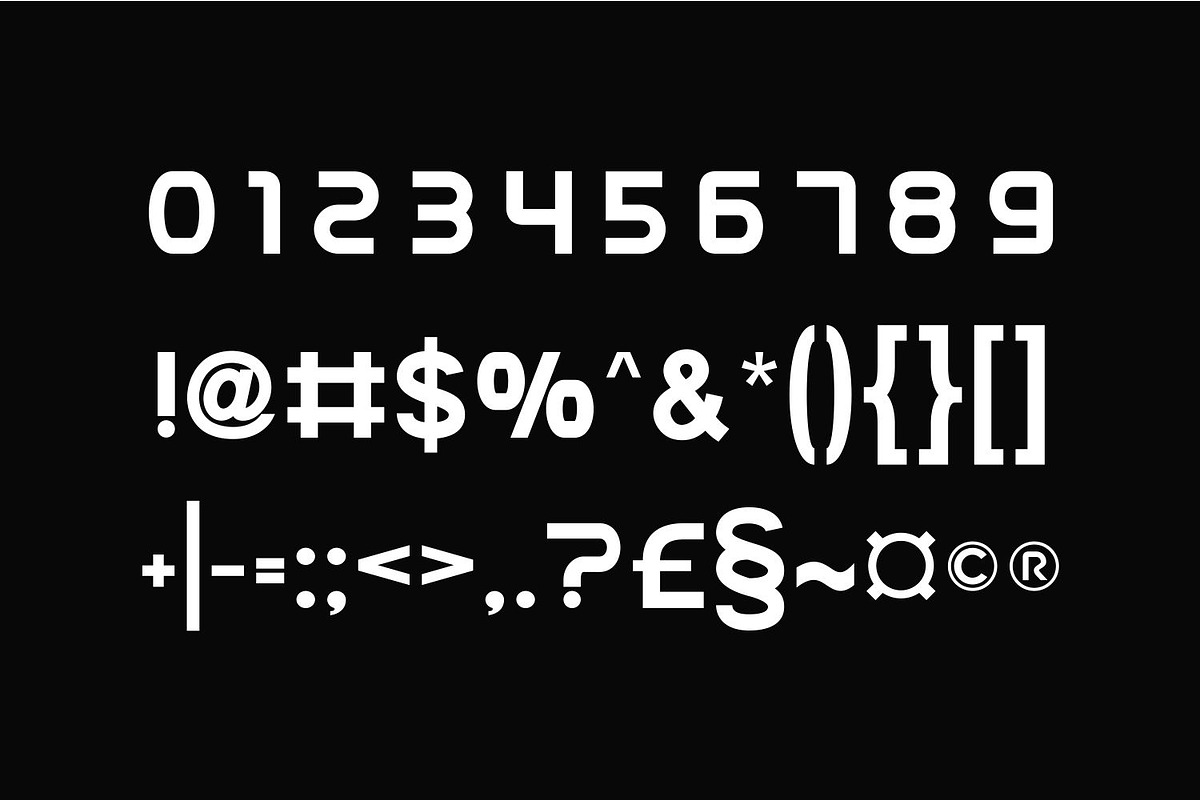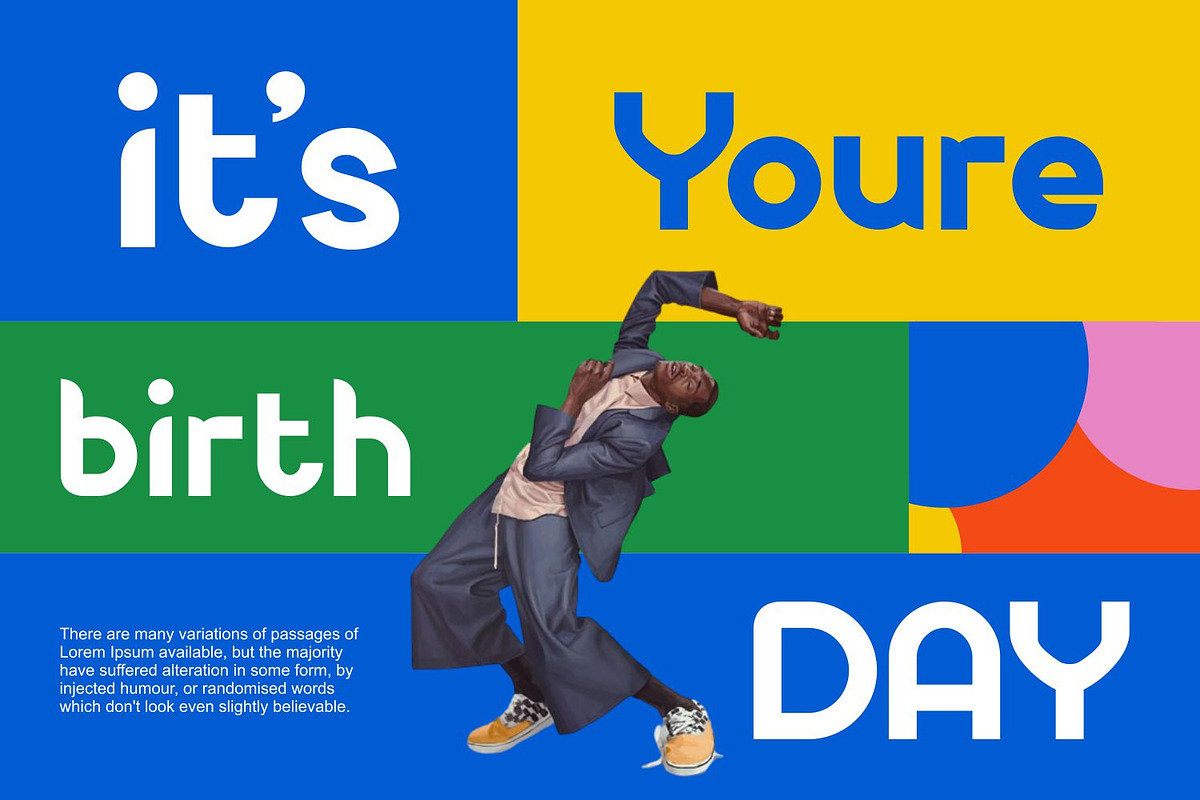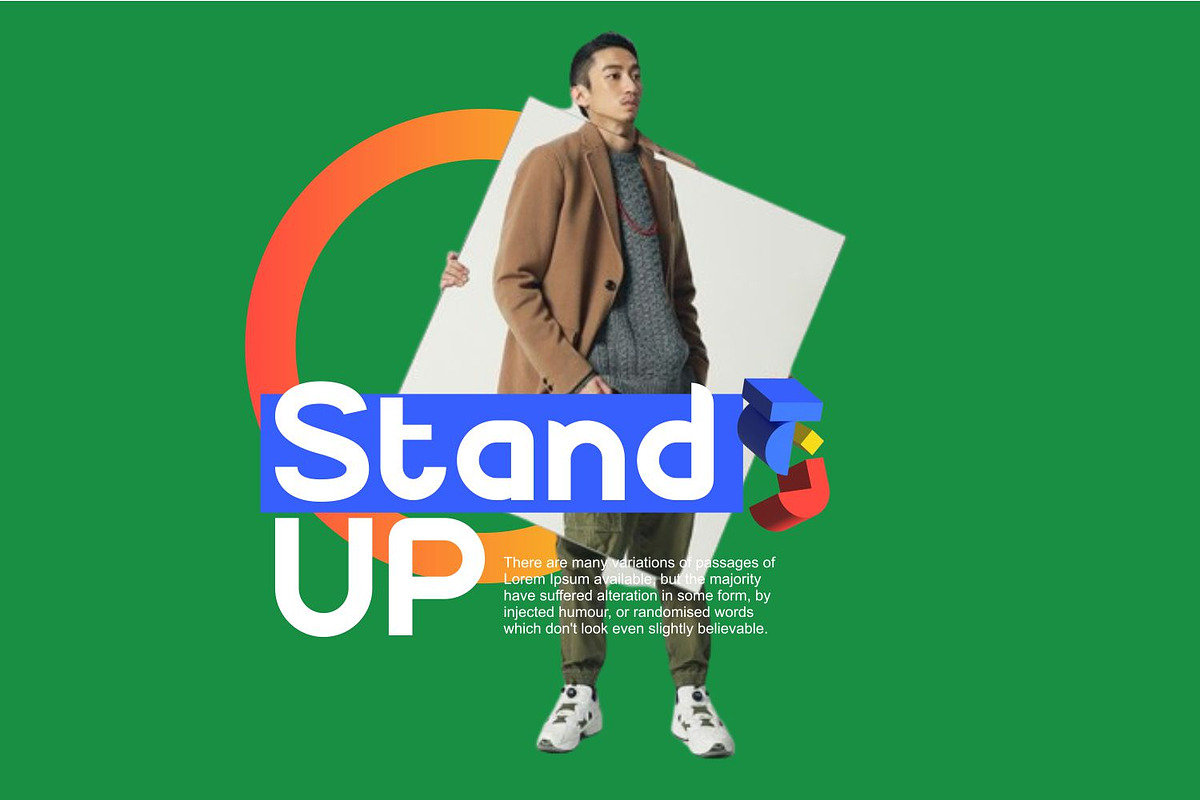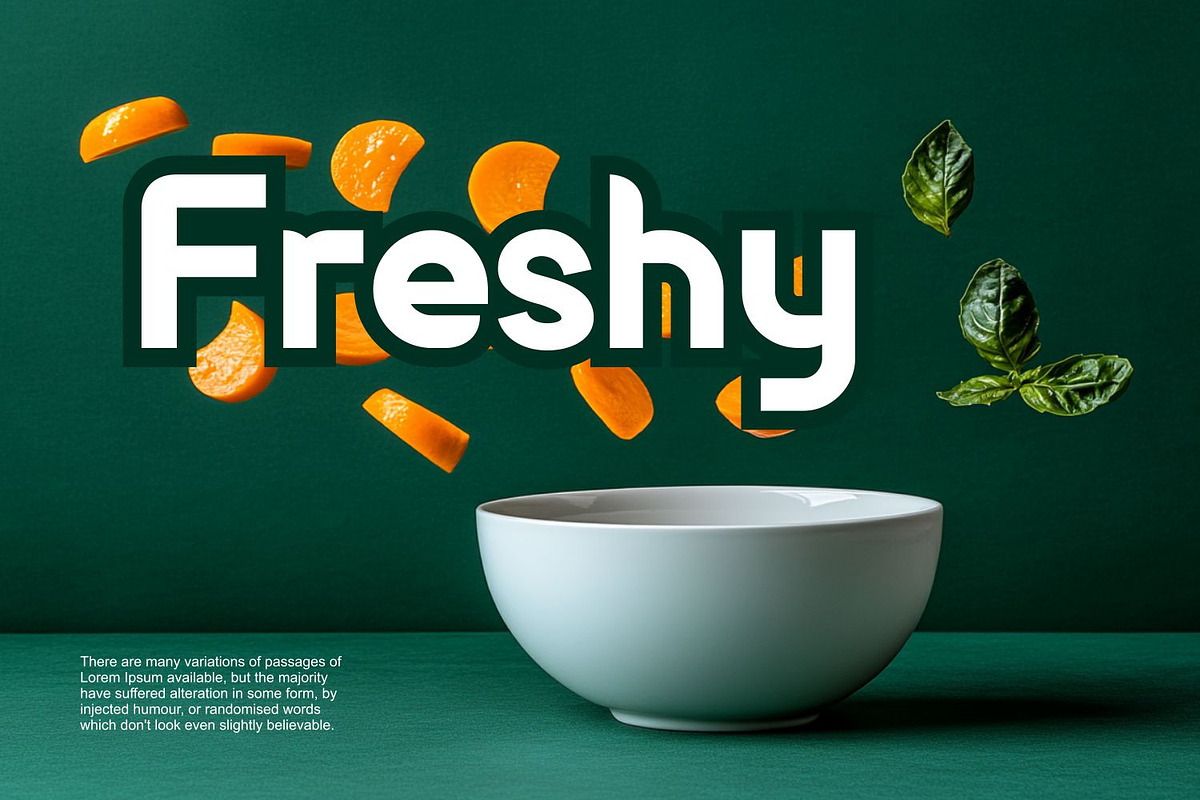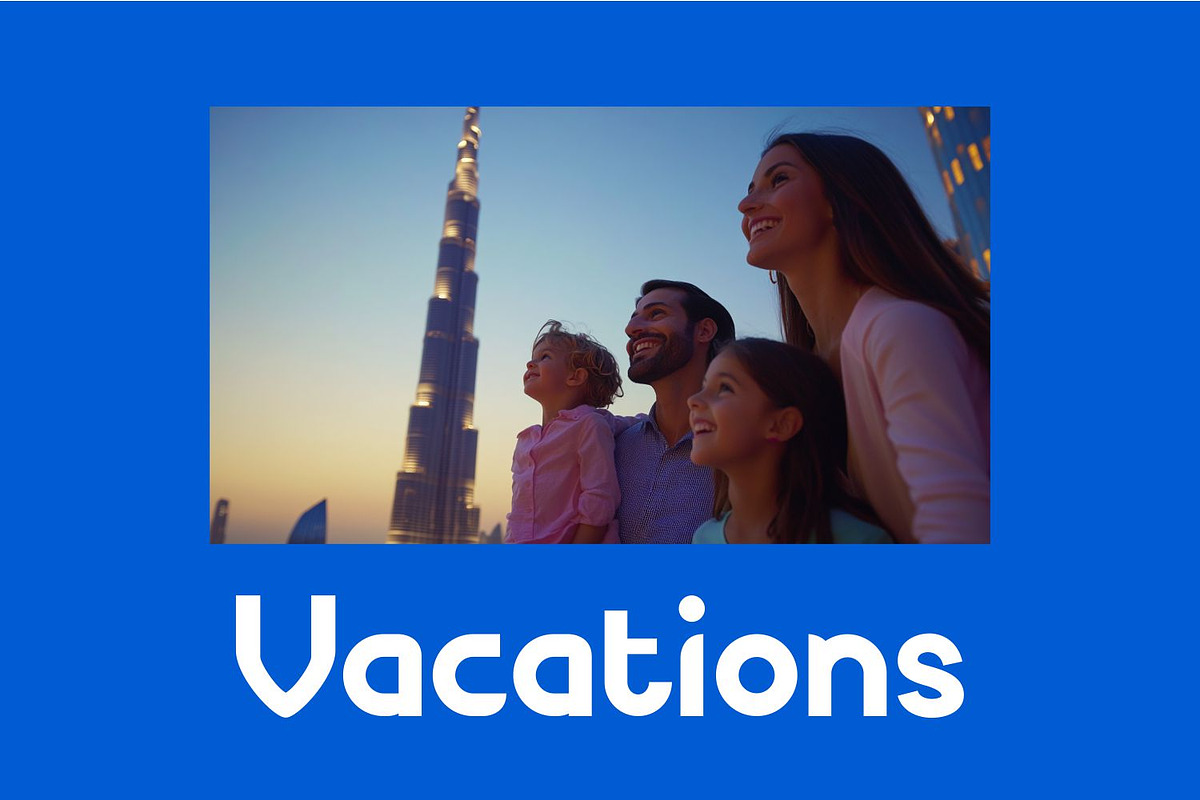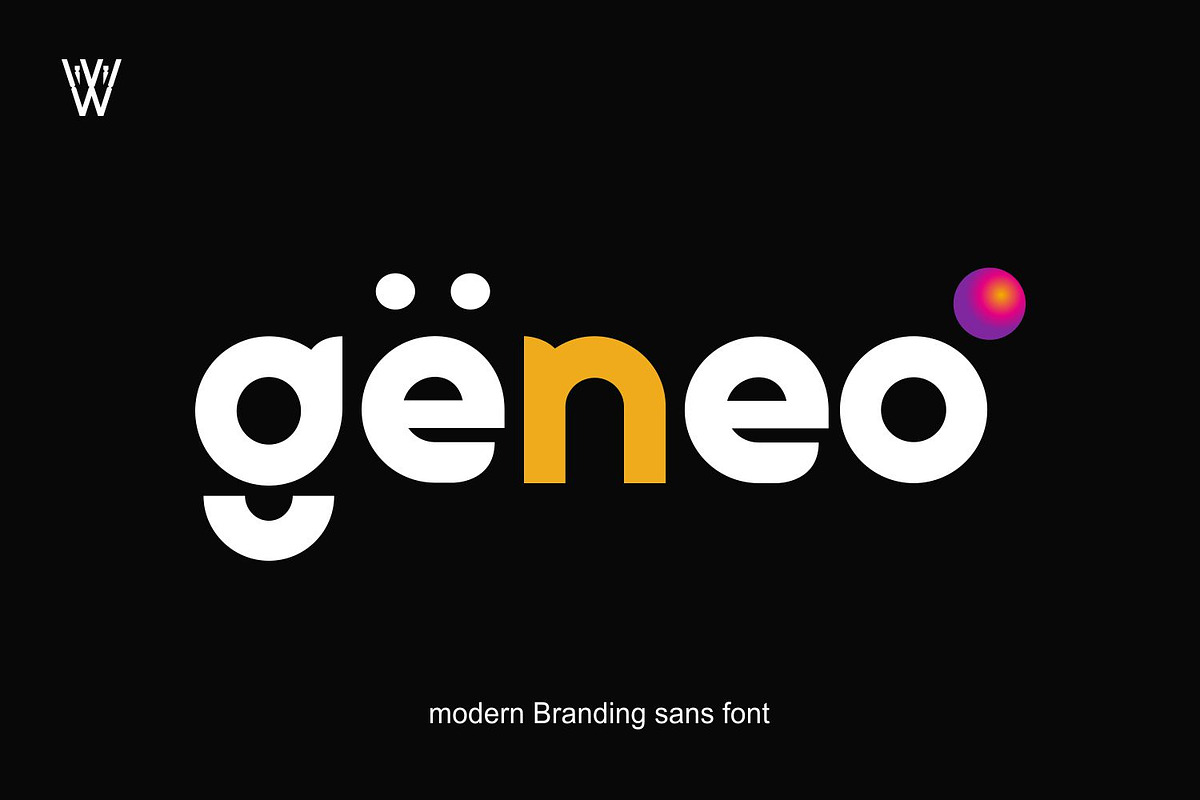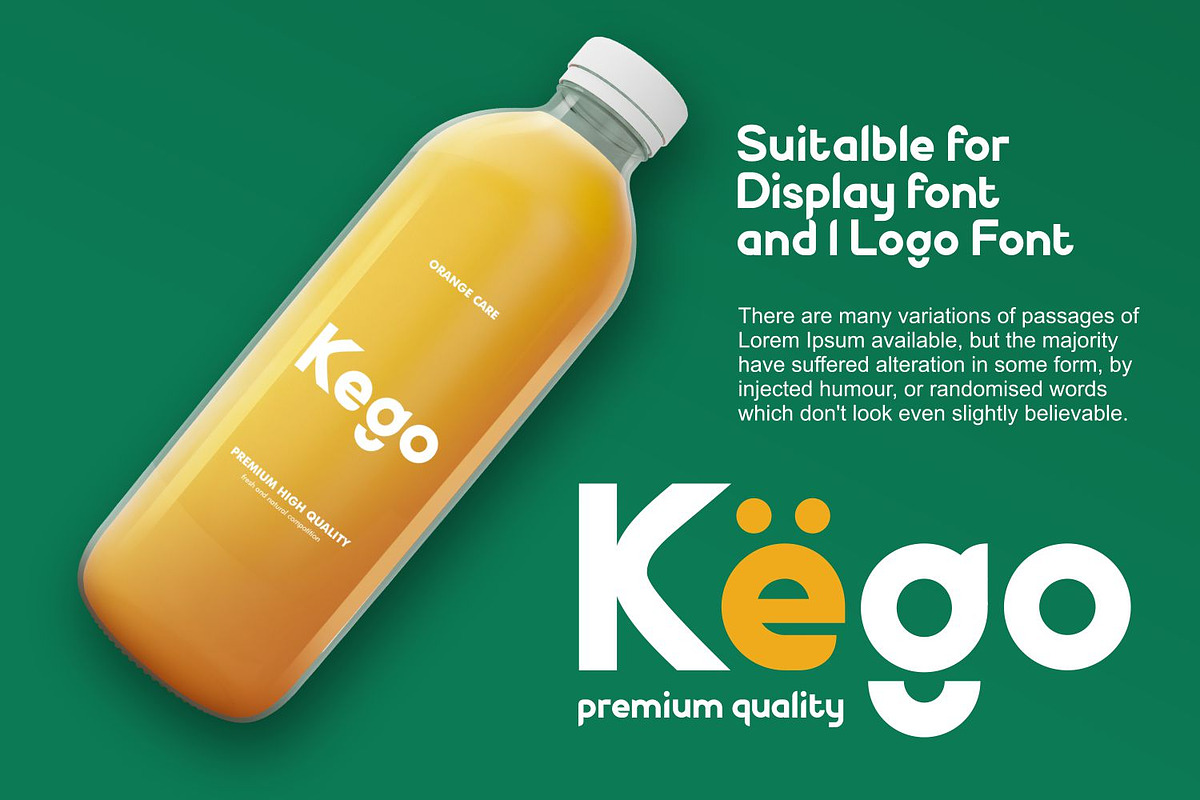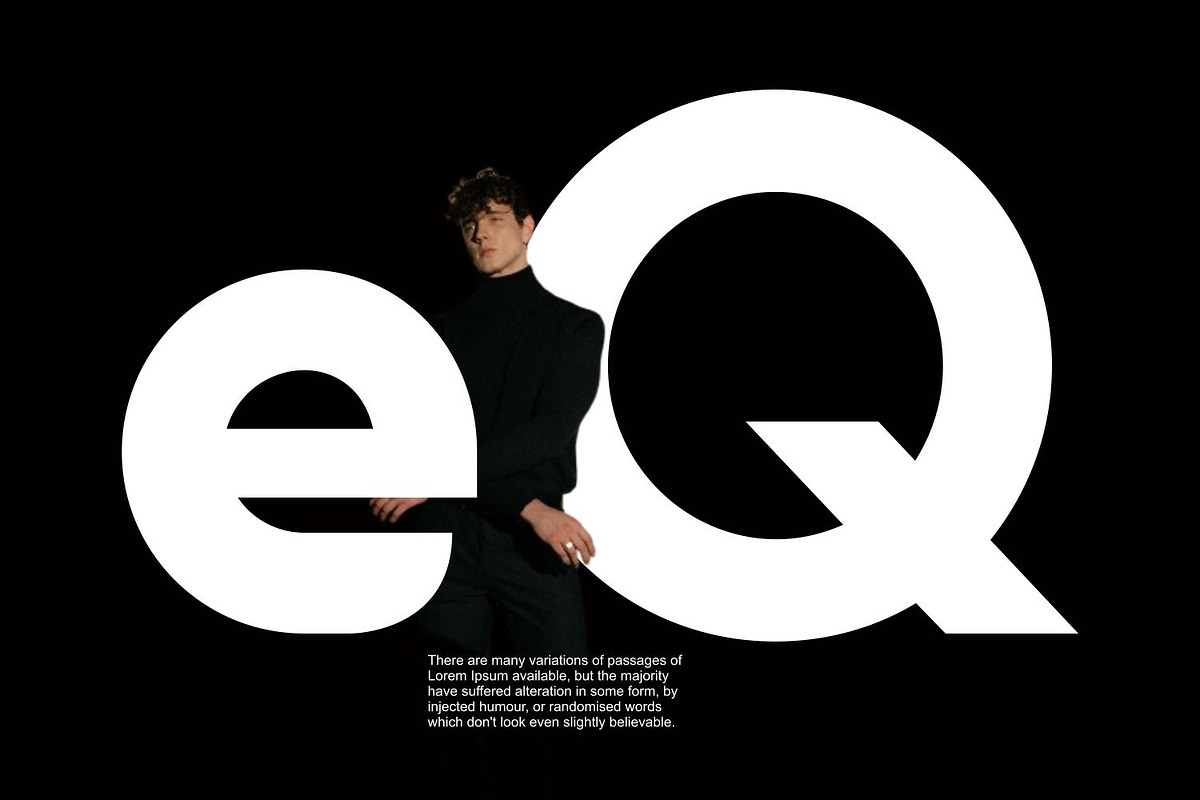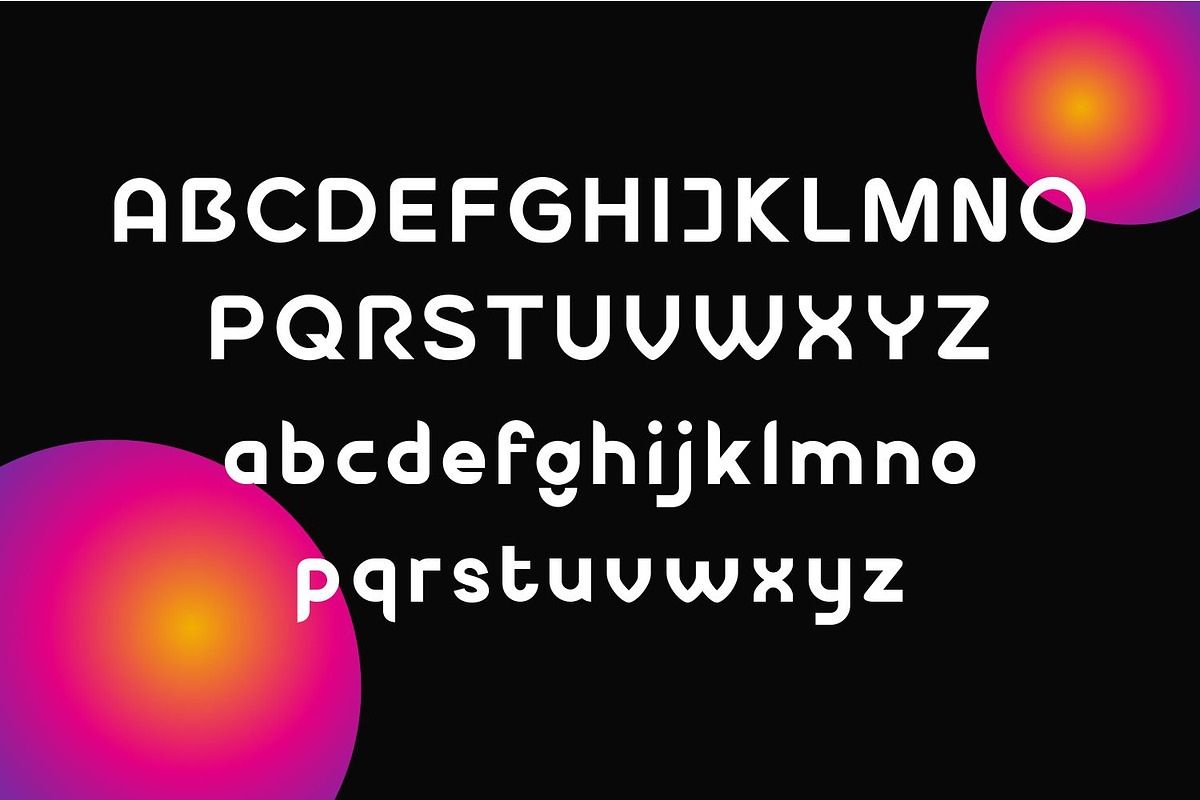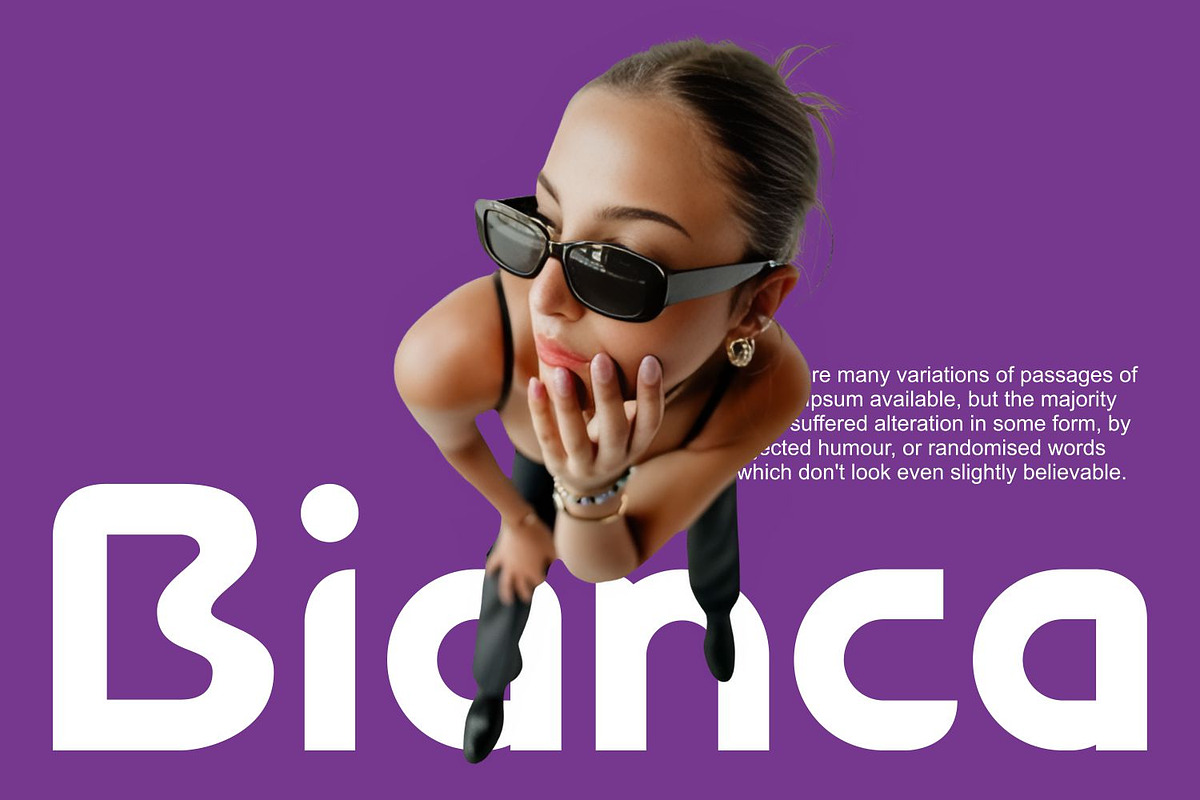
Geneo Bold Modern Sans
Geneo is a sleek and modern futuristic font designed to bring a cutting-edge vibe to your creative projects. Perfect for tech-focused designs, digital artwork, and innovative branding, Geneo offers a bold, clean style that stands out. Whether you’re crafting a high-tech logo, a website, or a digital ad, Geneo’s contemporary aesthetic ensures your work is both modern and visually captivating.